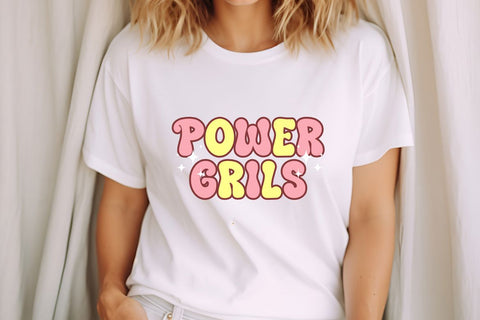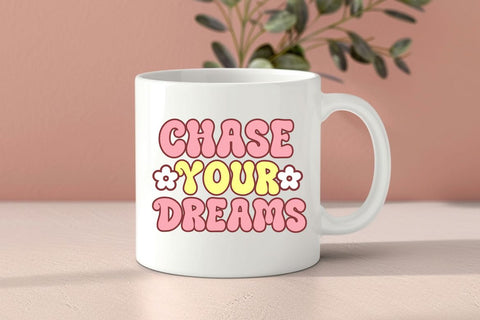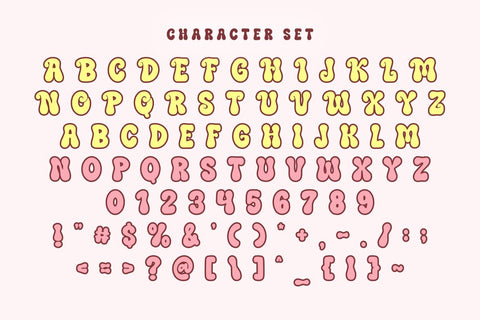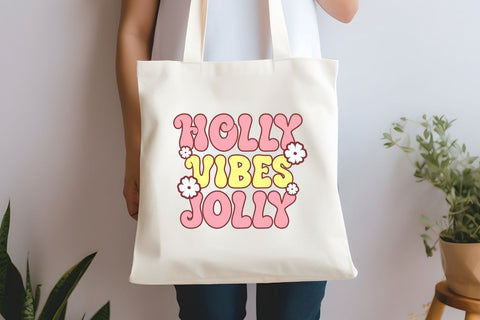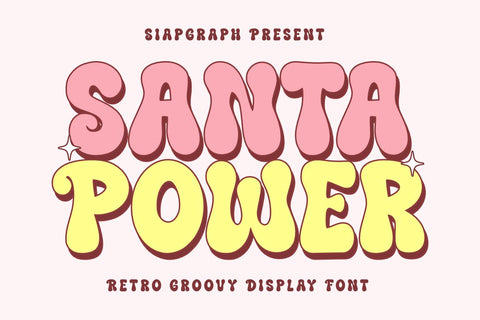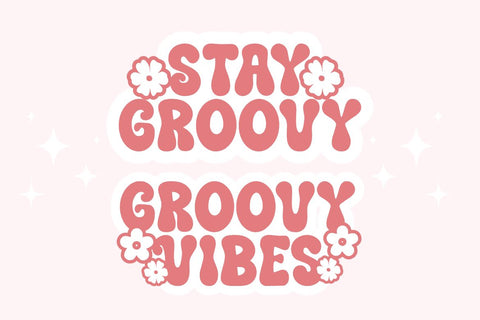
Santa Power - Retro Groovy Font
Santa Power is a fancy christmas groovy font that brings a fun, nostalgic vibe to your creative projects. Its thick strokes and playful curves make it perfect for adding a vintage flair to any design.
Ideal for crafting, sublimation, print on demand, decals, DIY, branding, and KDP interior, Santa Power is perfect for planner designs, logos, greeting cards, merchandise, and product promotions. This font comes in OTF and TTF formats, features PUA encoding for easy access to all characters